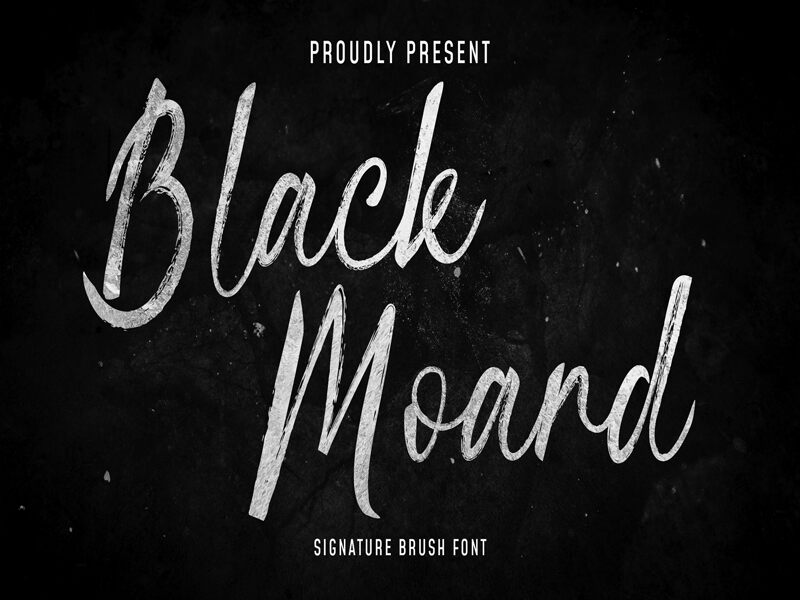
Blackmoard Signature, the innovative creation of Bayu Wibisono, is a remarkable brush font that exudes elegance and sophistication. With its light weight and semi-condensed width, this font is perfect for projects that require a touch of class and distinction. It's perfect for creating stylish logos, fashionable business cards, elegant wedding invitations, or even trendy social media posts. The unique brush style gives your designs an organic feel while maintaining professionalism. Blackmoard Signature is the ideal choice for those who want to make a lasting impression with their designs.
The font is perfect for branding, wedding invites, branding, logos, product packaging, invitation, qoutes, t-shirt, label poster
Blackmoard Signature Brush Features:
Uppecase
Lowercase
Number & Puntuaction
Multilingual
Ligatures
Swash